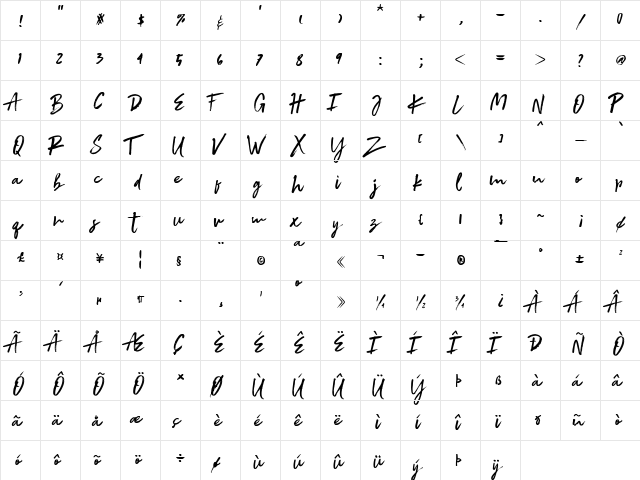
Grades Regular
| Foundry | Atom٠Graphic Studio |
| Designer | Eko Kurniawan | Atom٠Graphic Studio |
Design Context for Grades Typeface
Grades is a composed and adaptable typeface that performs quietly and consistently across a wide range of design contexts.